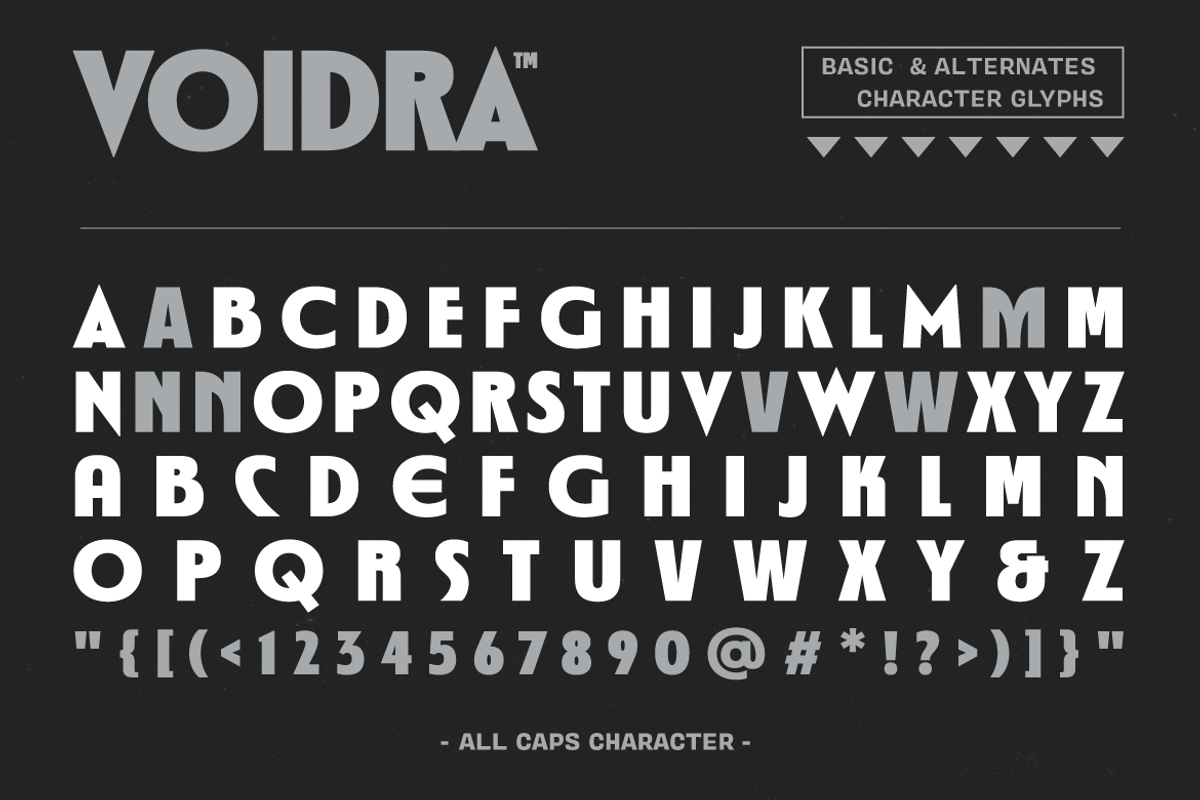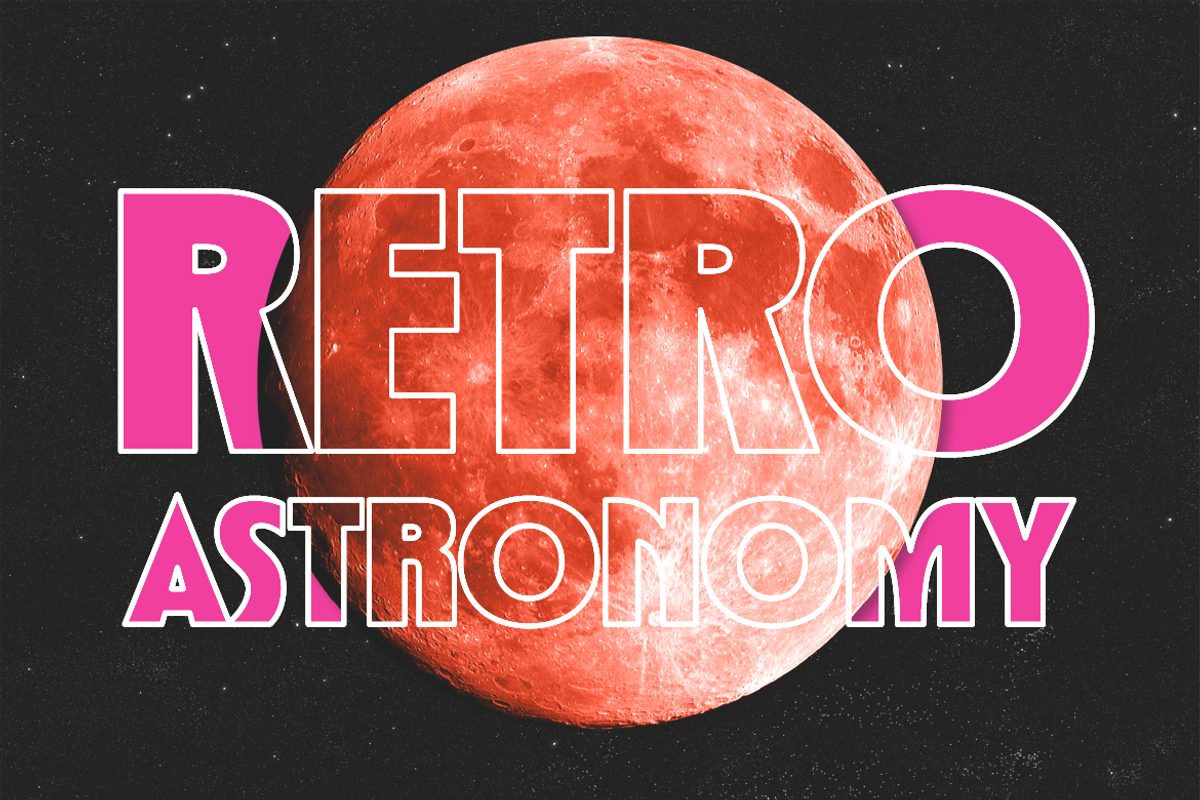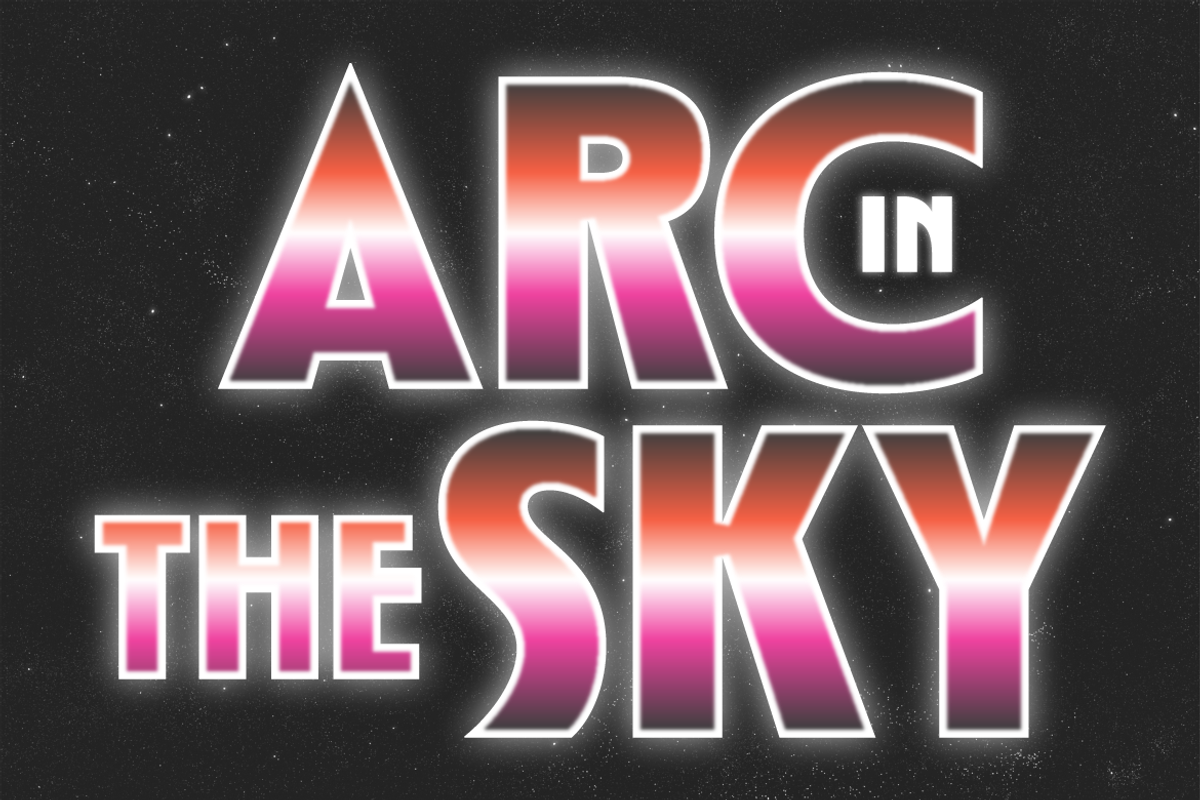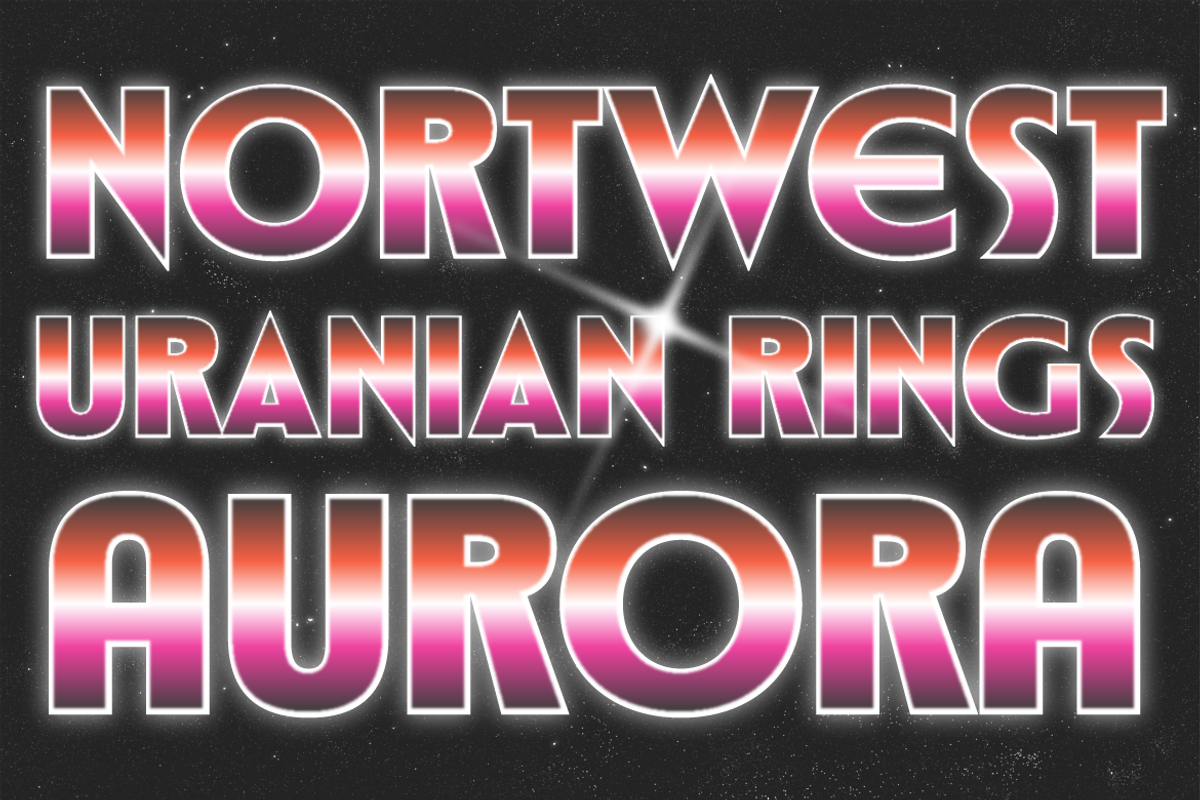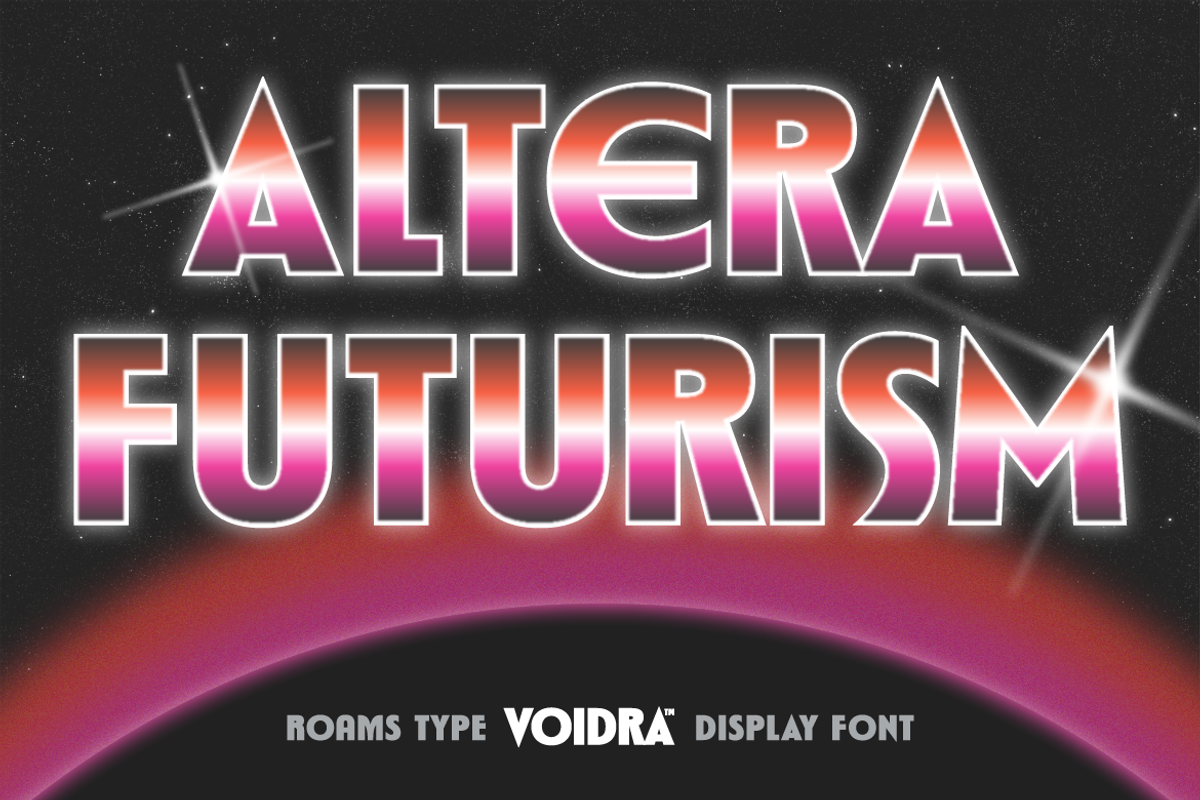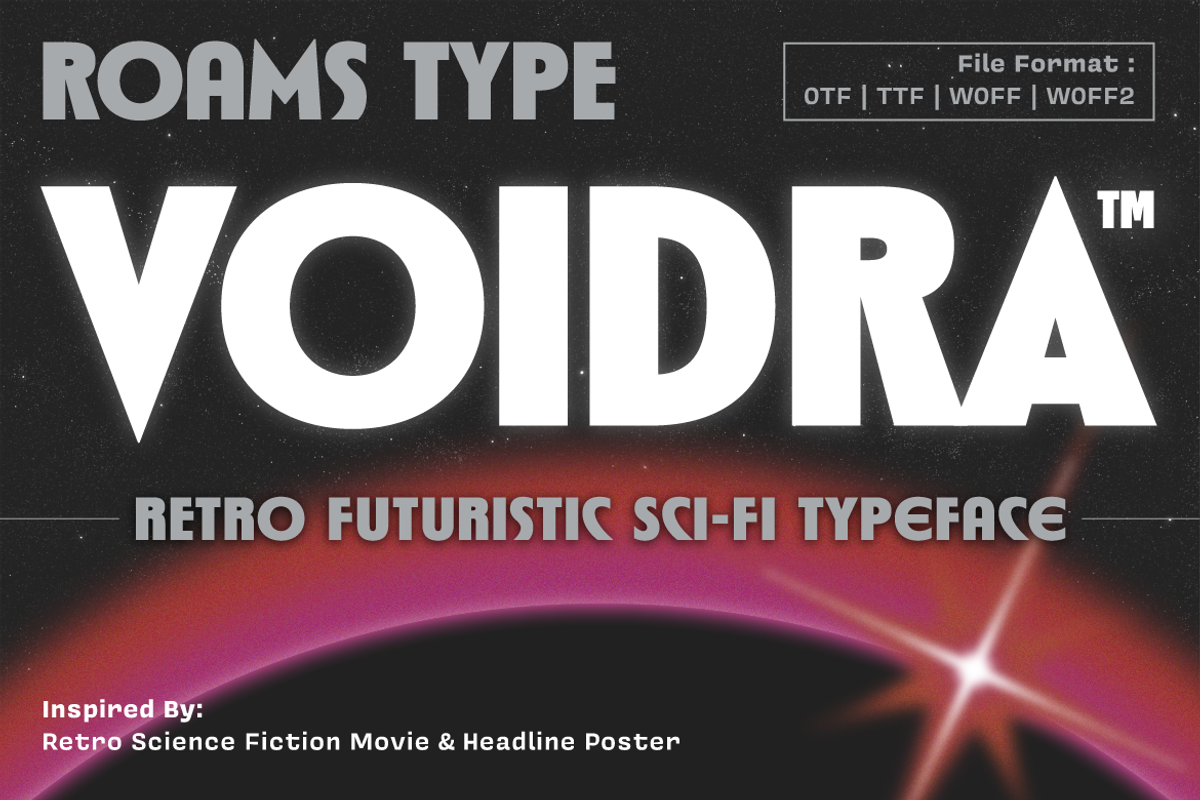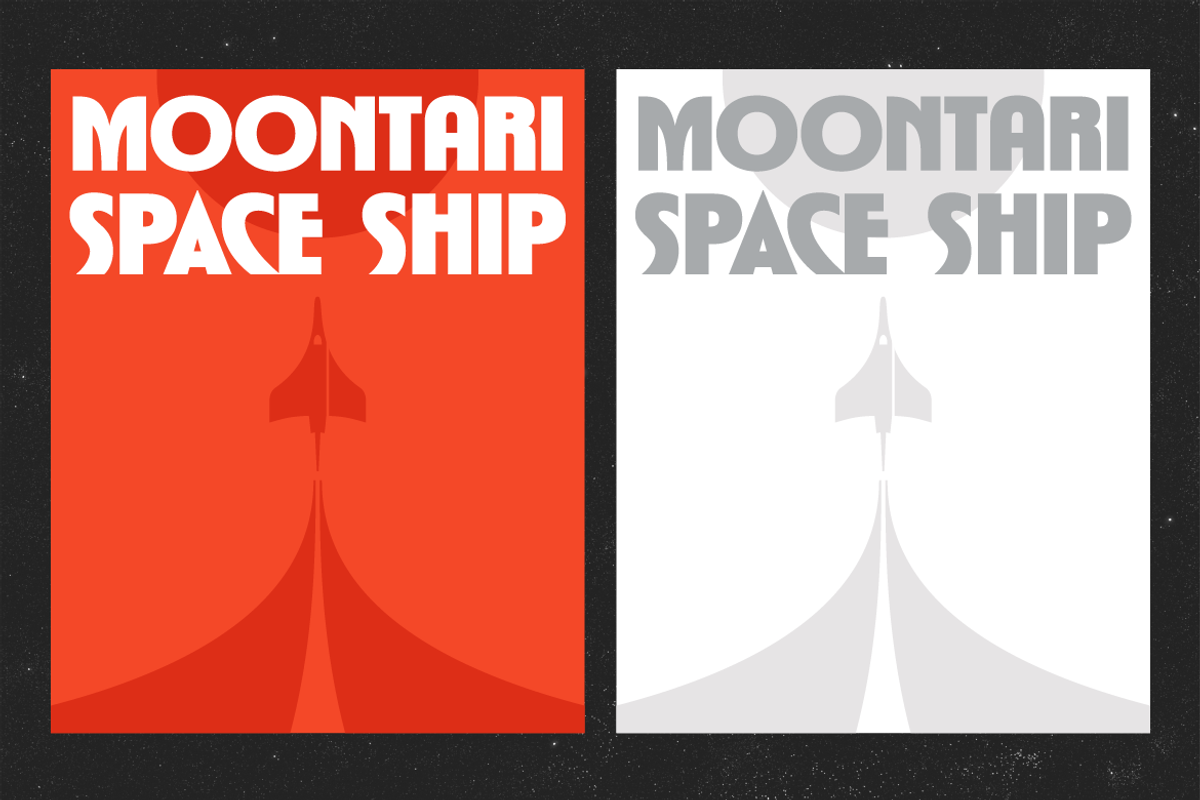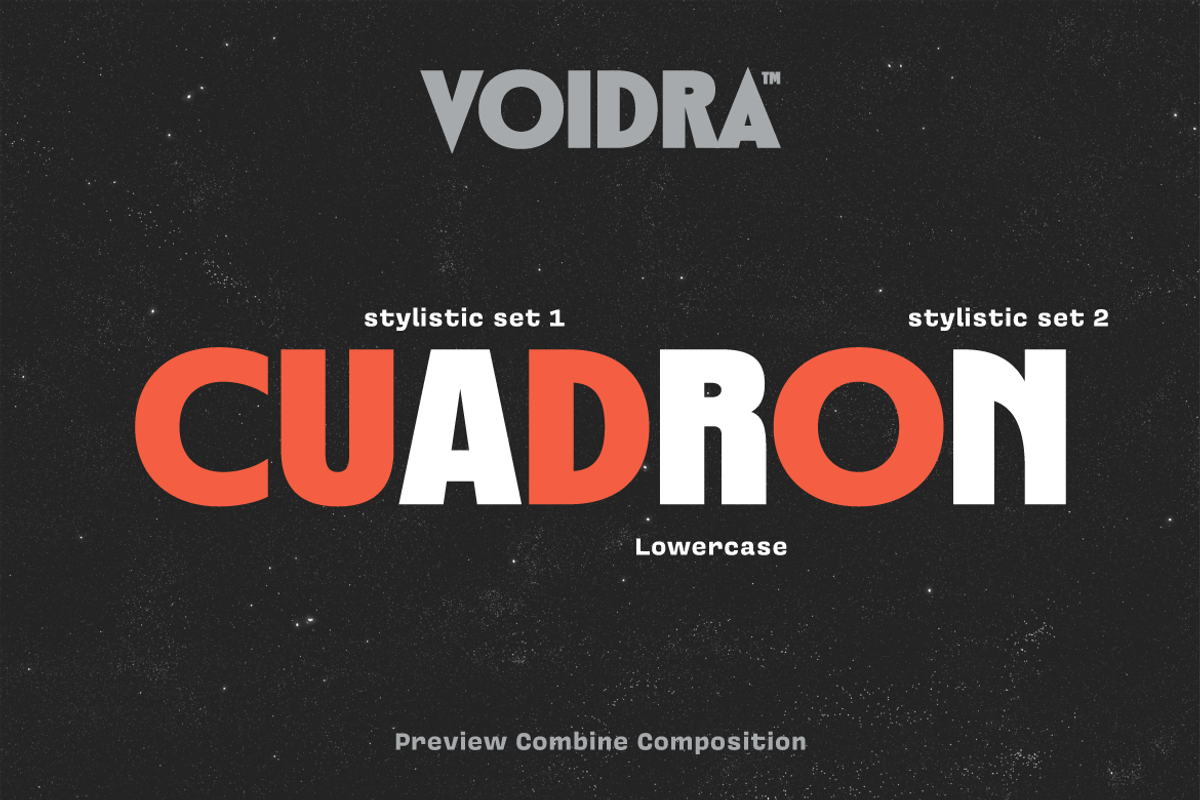
Voidra - Futuristic Sci-Fi Typeface
VOIDRA is a bold futuristic display typeface inspired by retro sci-fi aesthetics and modern minimal forms. Designed to create strong visual impact, this typeface combines clean geometry with subtle vintage energy, making it perfect for standout headlines and branding projects.
With its sharp structure and confident presence, VOIDRA delivers a powerful typographic voice while staying versatile and easy to use.
- ALL UPPERCASE
- NUMERAL PUNCTUATION
- ALTERNATES CHARACTER
VOIDRA is crafted to bring modern clarity and nostalgic edge into one cohesive display typeface. Make your designs bold. Make them unforgettable.